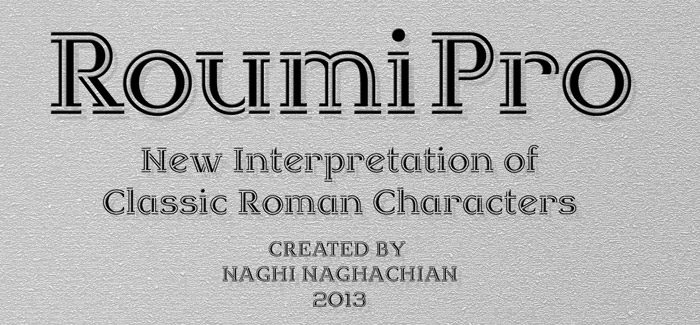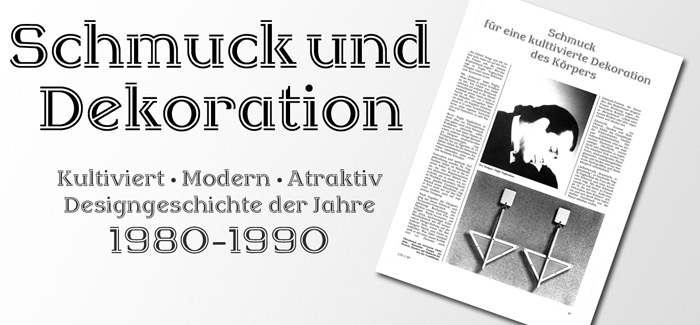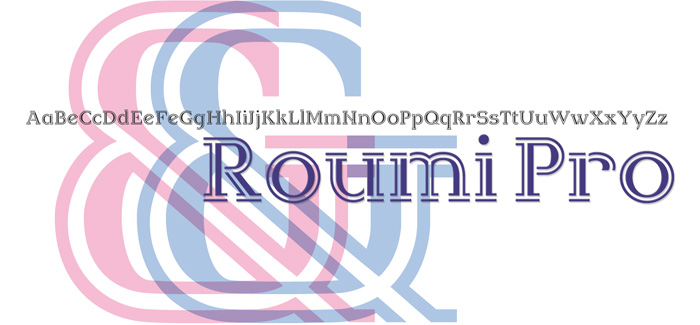
Roumi Pro font
Roumi Pro font is designed by Naghi Naghashian. It is a headline font, as modern interpretation of classic Roman characters in 1 weight: Regular. The naming is driven from the name of Rumi (the Roman), Persian philosopher and poet, 1207-1273.
The character set of this Font family supports most western languages including: Afrikaans, Basque, Breton, Catalan, Danish, Dutch, English, Finnish, French, Gaelic, German, Icelandic, Indonesian, Irish, Italian, Norwegian, Portuguese, Sami, Spanish, Swahili and Swedish. There are 17 additional symbol characters: euro, litre, estimated, omega, pi, partialdiff, delta, product, summation, radical, infinity, integral, approxequal, notequal, lessequal, greaterequal, and lozenge.
It also includes the characters necessary to support the following central European languages: Croatian, Czech, Estonian, Hungarian, Latvian, Lithuanian, Polish, Romanian, Serbian (Latin), Slovak, Slovenian and Turkish.